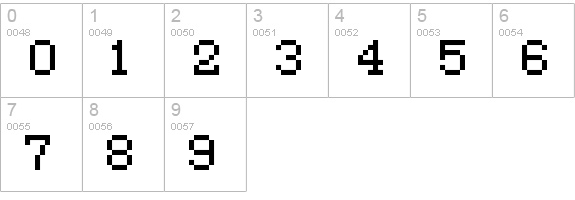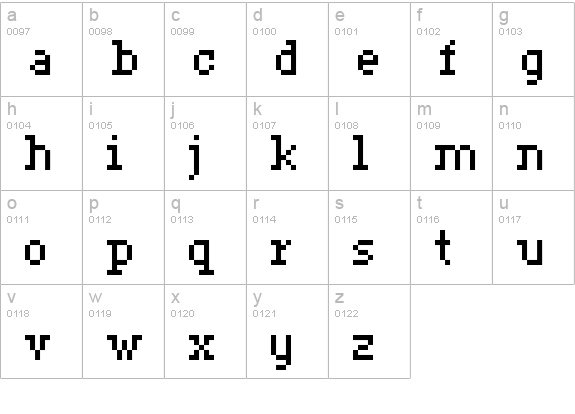
Ceriph 07_55 font is a modern and sleek typeface that exudes sophistication and elegance. Its clean lines and stylish design make it perfect for a wide range of design projects, from branding to editorial layouts. This versatile font strikes the perfect balance between professionalism and creativity, making it a must-have for any designer looking to make a statement. What sets Ceriph 07_55 font apart is its unique blend of classic typography with a contemporary twist. The subtle variations in weight and style give this font a distinctive look that is both timeless and on-trend. Whether you're creating a logo, website, or print materials, Ceriph 07_55 font will elevate your design and leave a lasting impression on your audience. The best part? Ceriph 07_55 font is available for free download at FontsMarket.com. This means you can start using this stunning font in your projects right away, without having to worry about breaking the bank. Don't miss out on the opportunity to add Ceriph 07_55 font to your font library and take your designs to the next level.